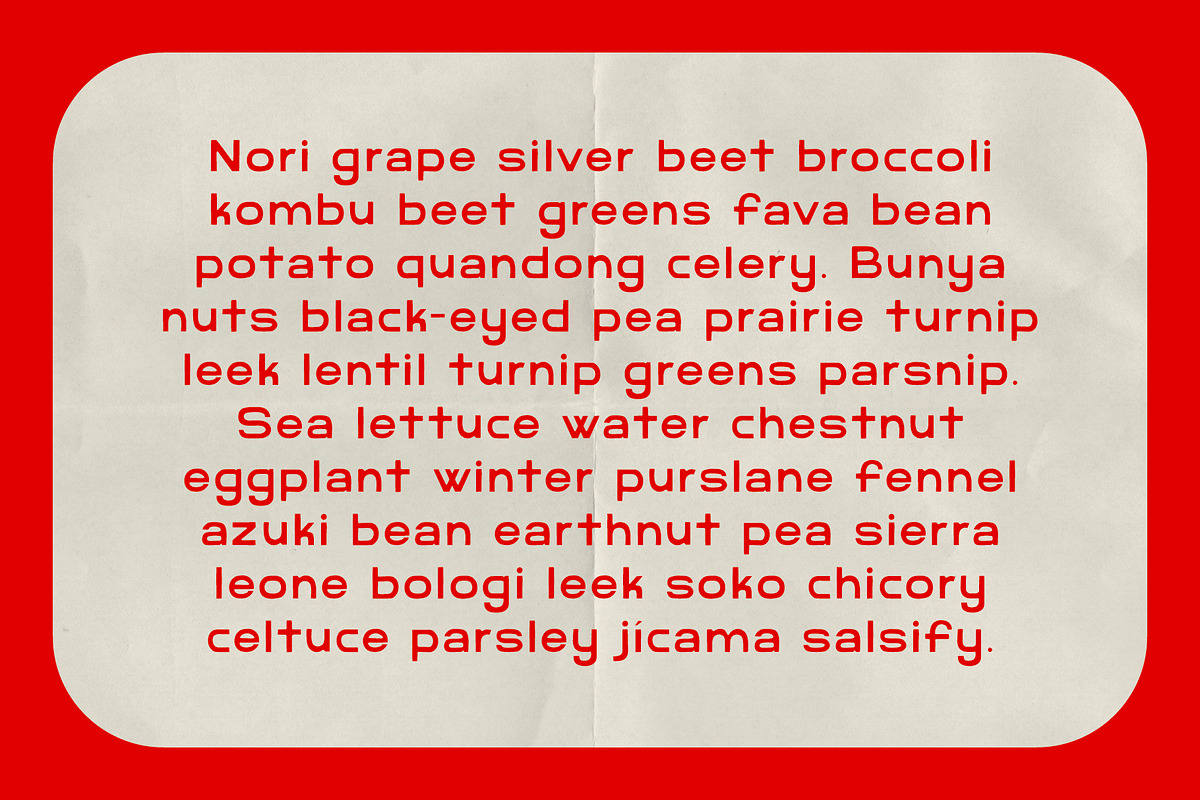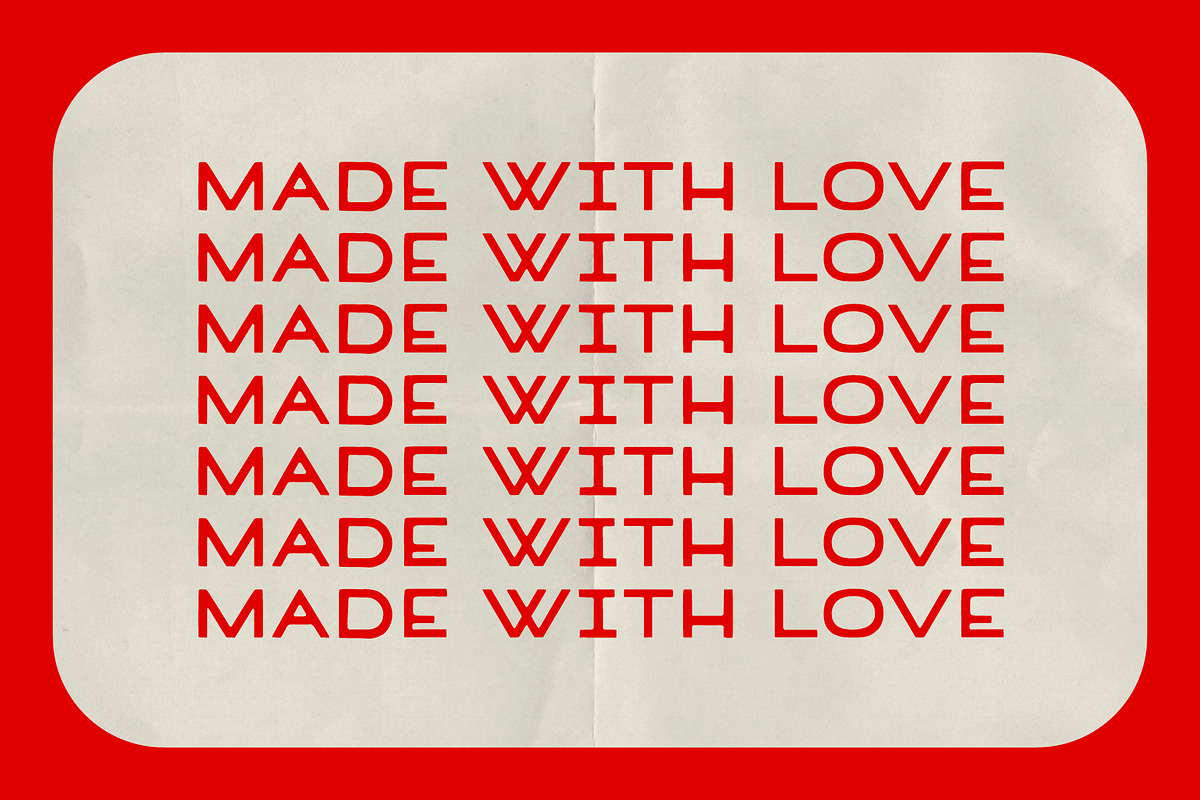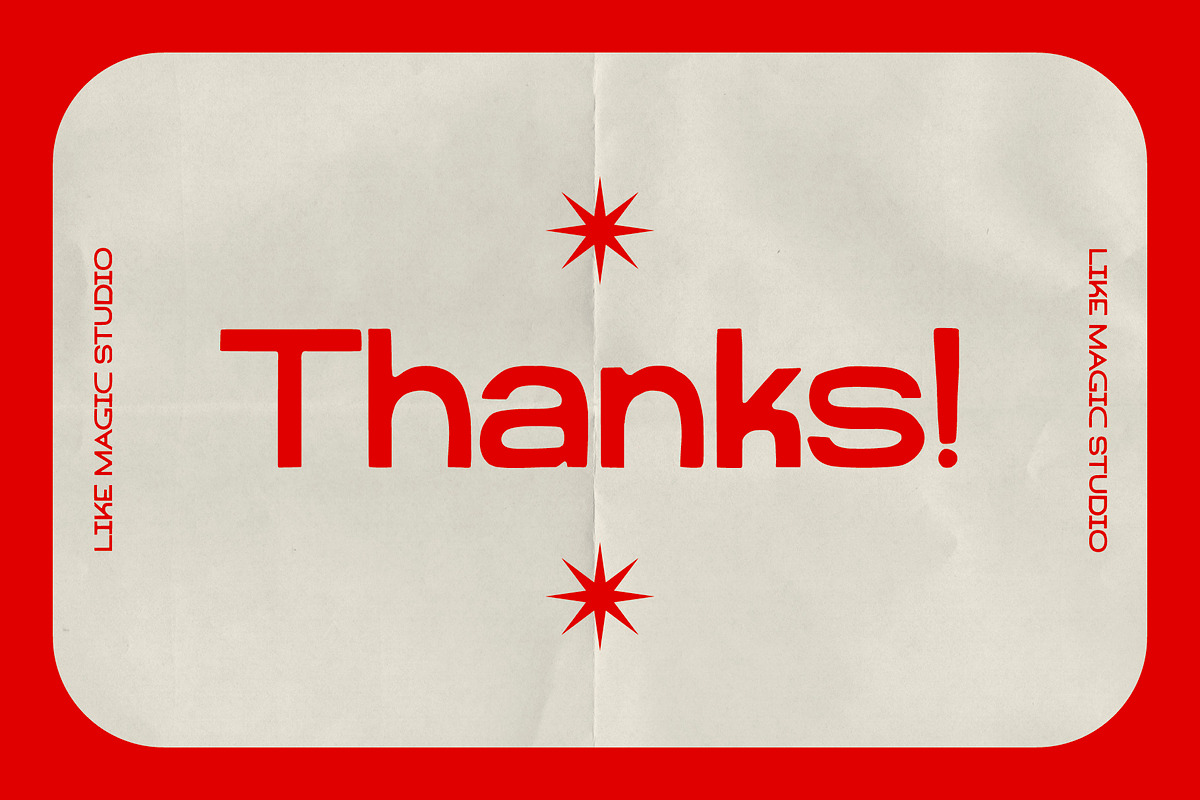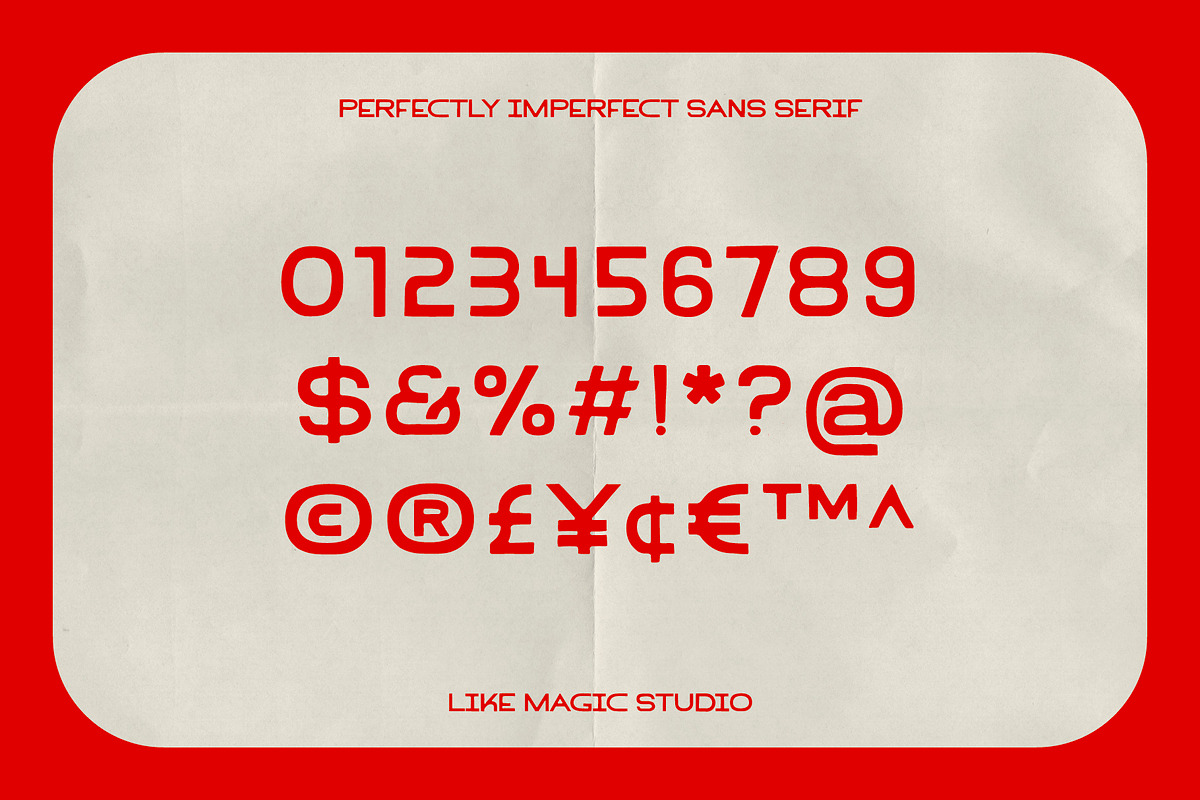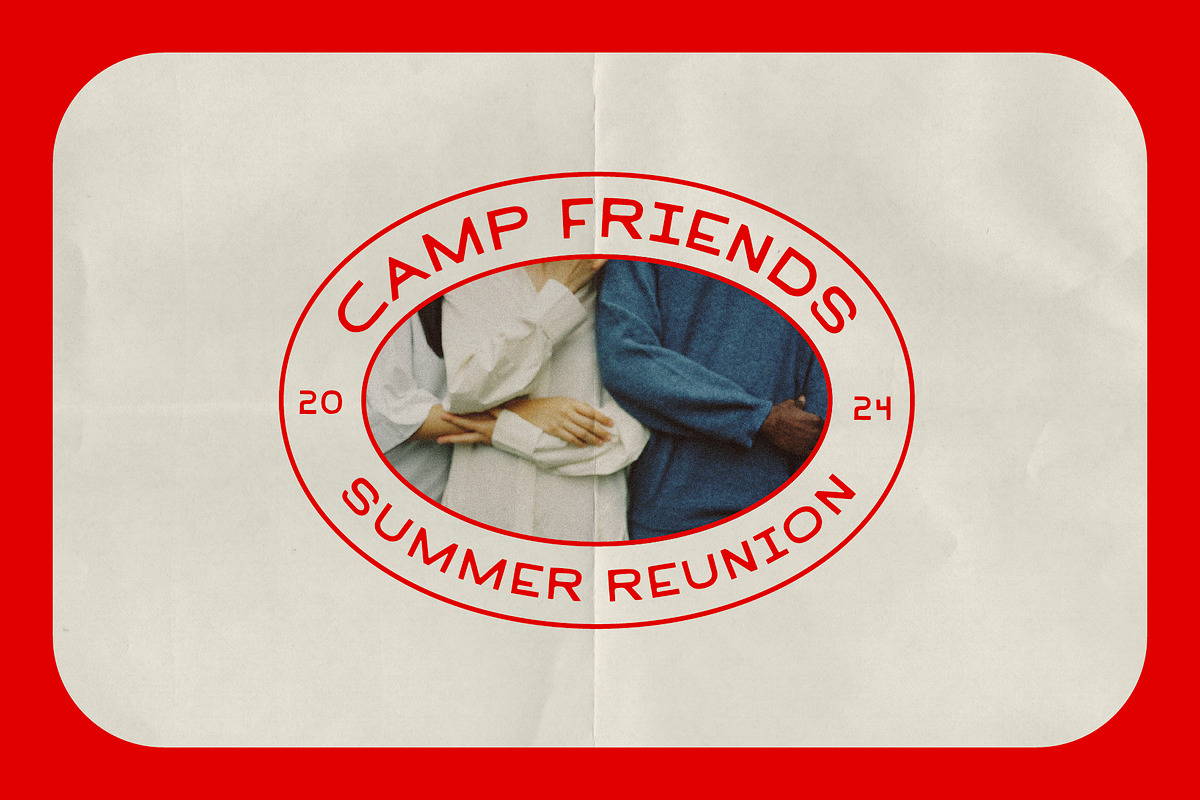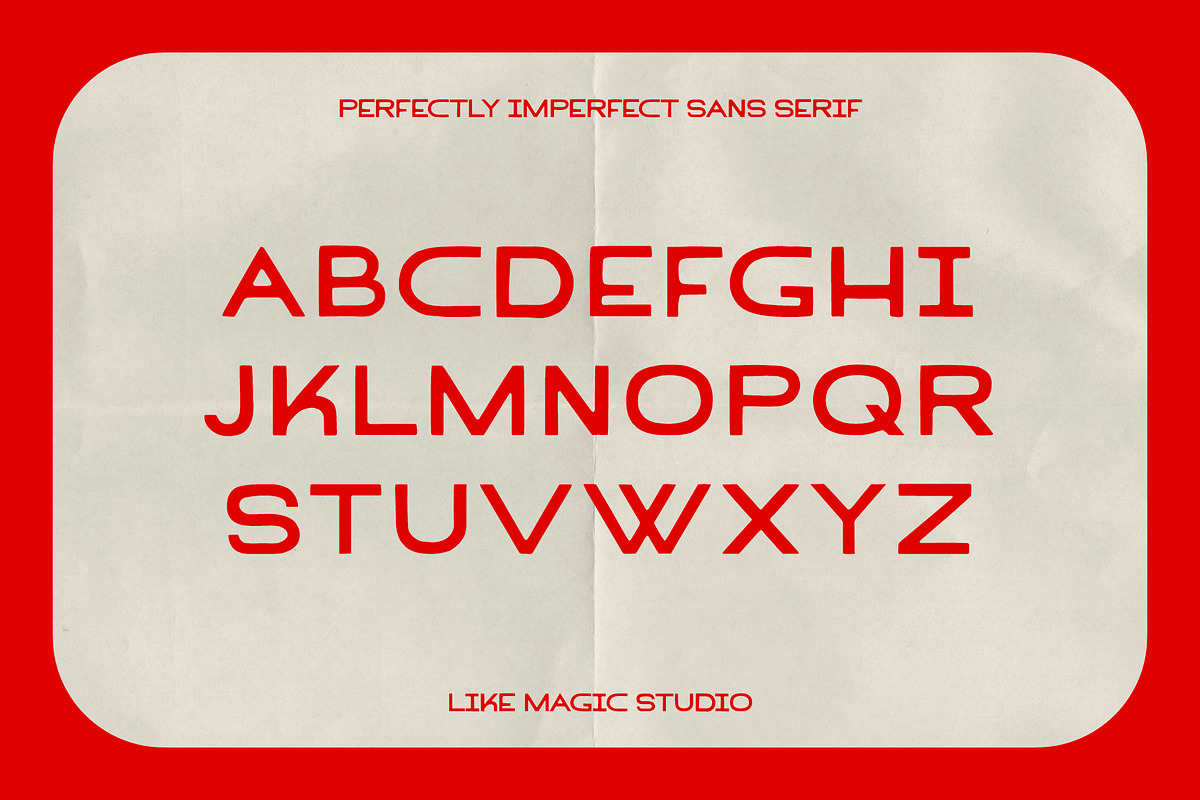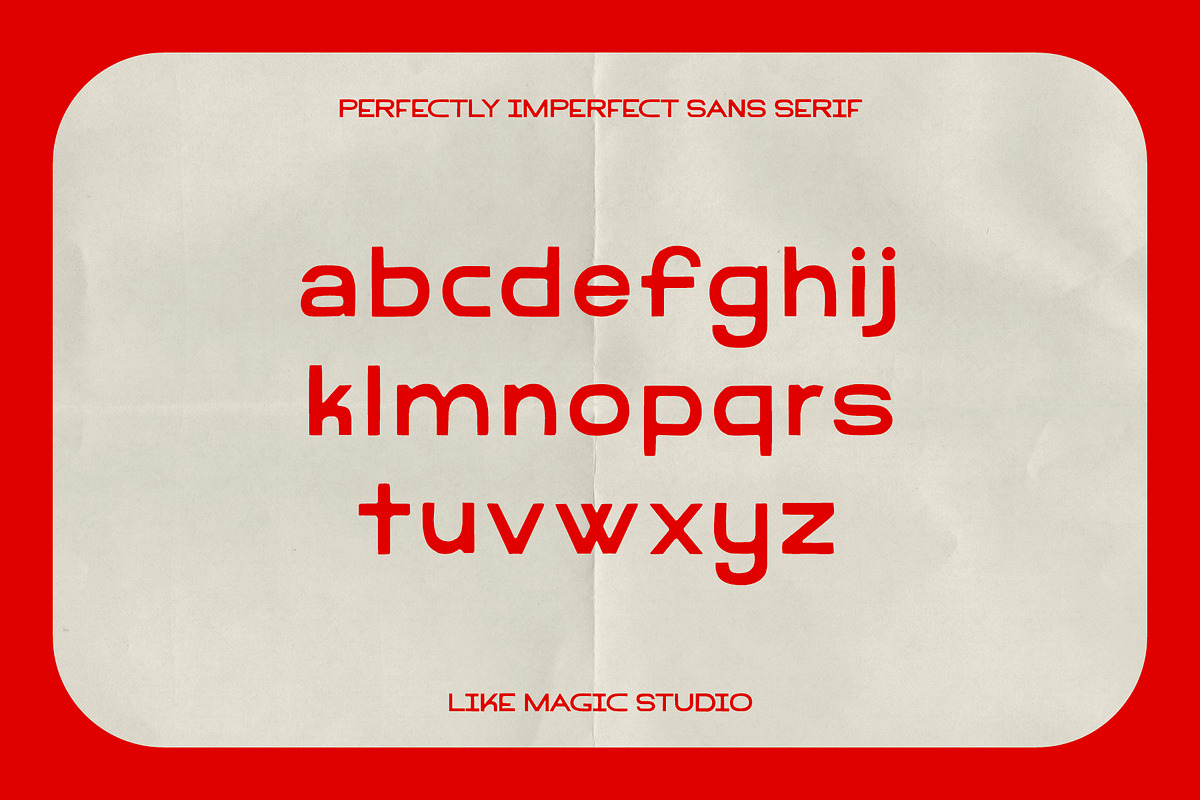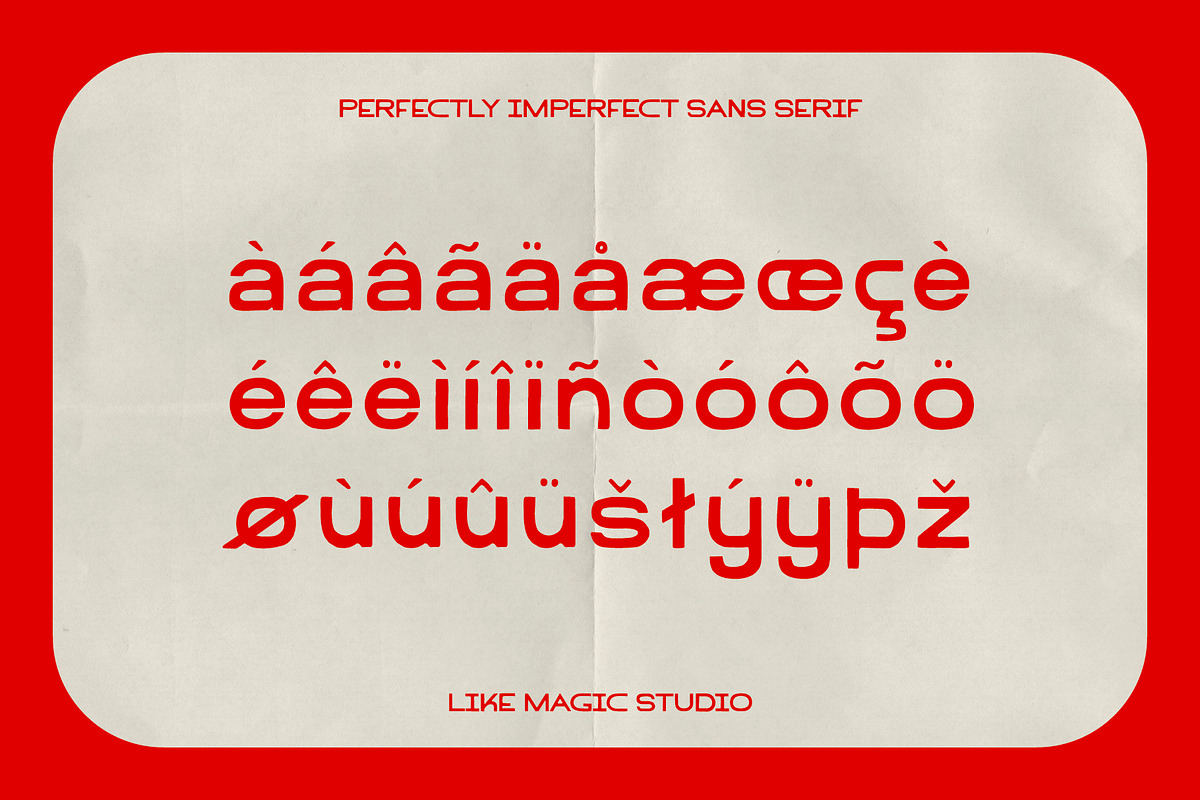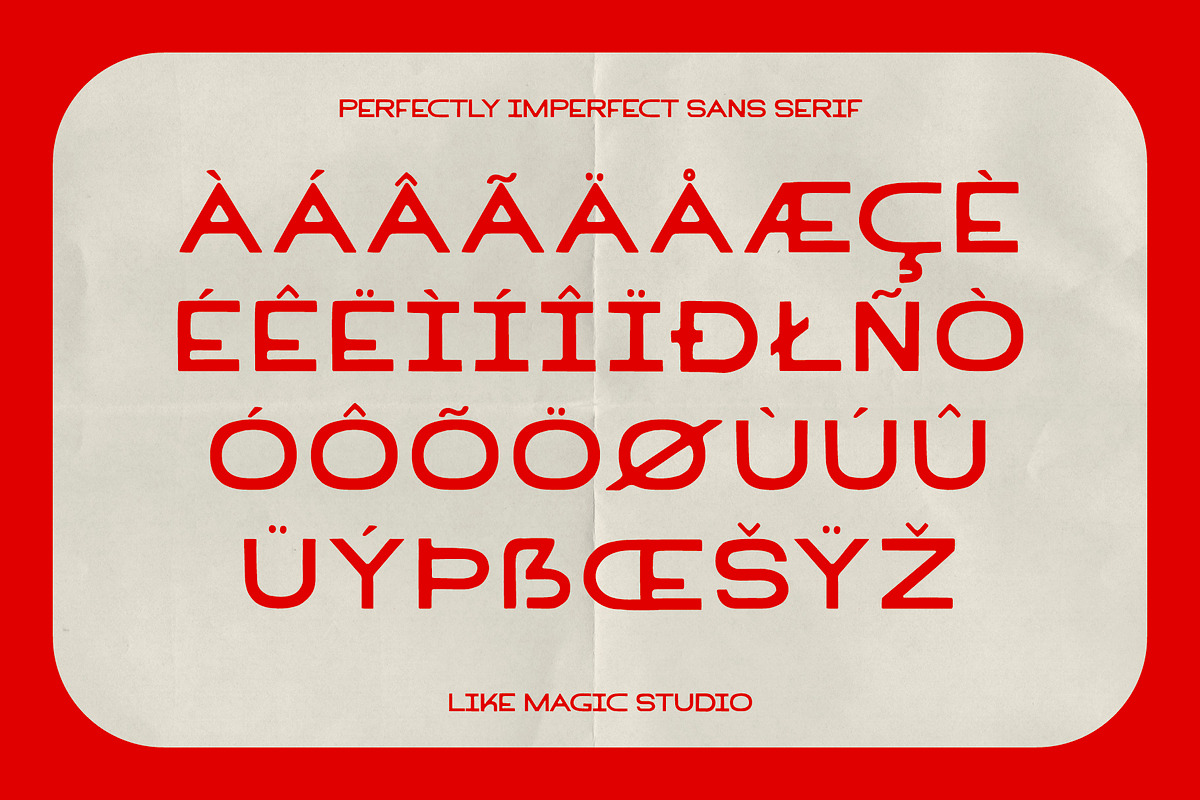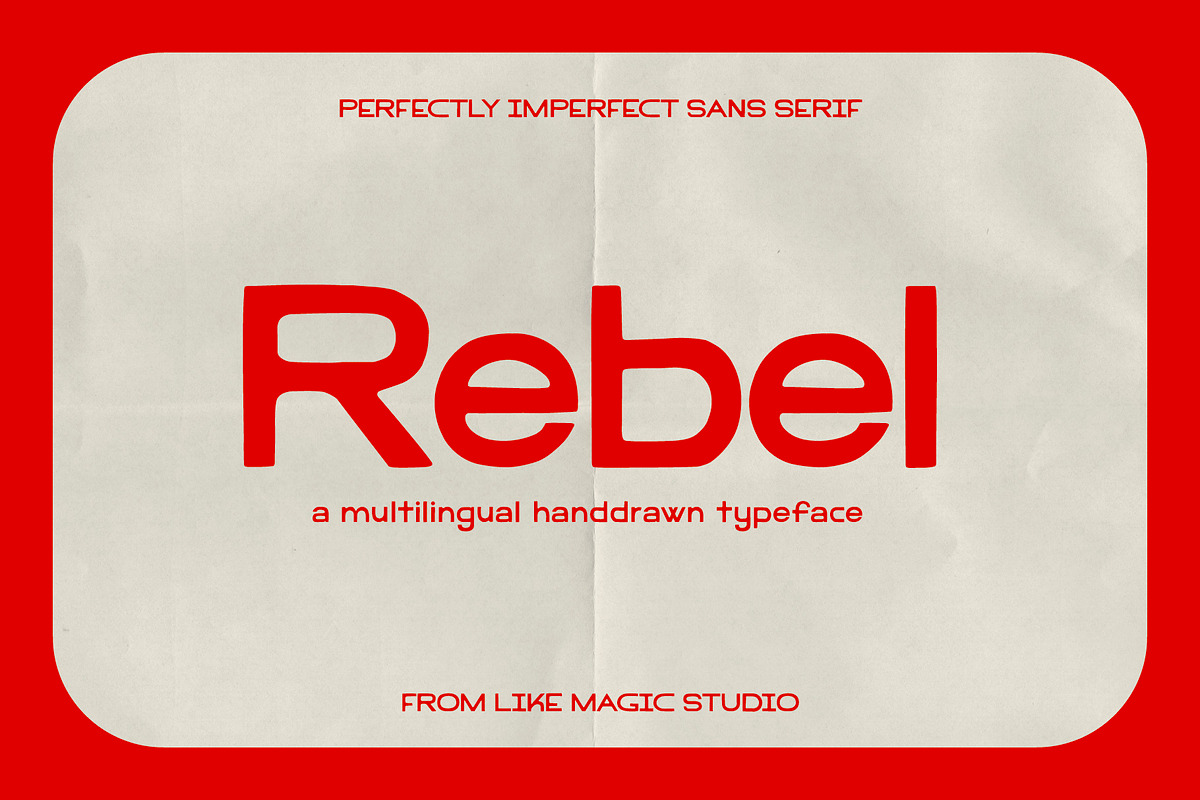
Rebel - An Imperfect Sans Serif
Rebel is a perfectly imperfect sans serif from Like Magic Studio. It's a bold and fun typeface that adds a human touch to any design.
This typeface is multilingual.